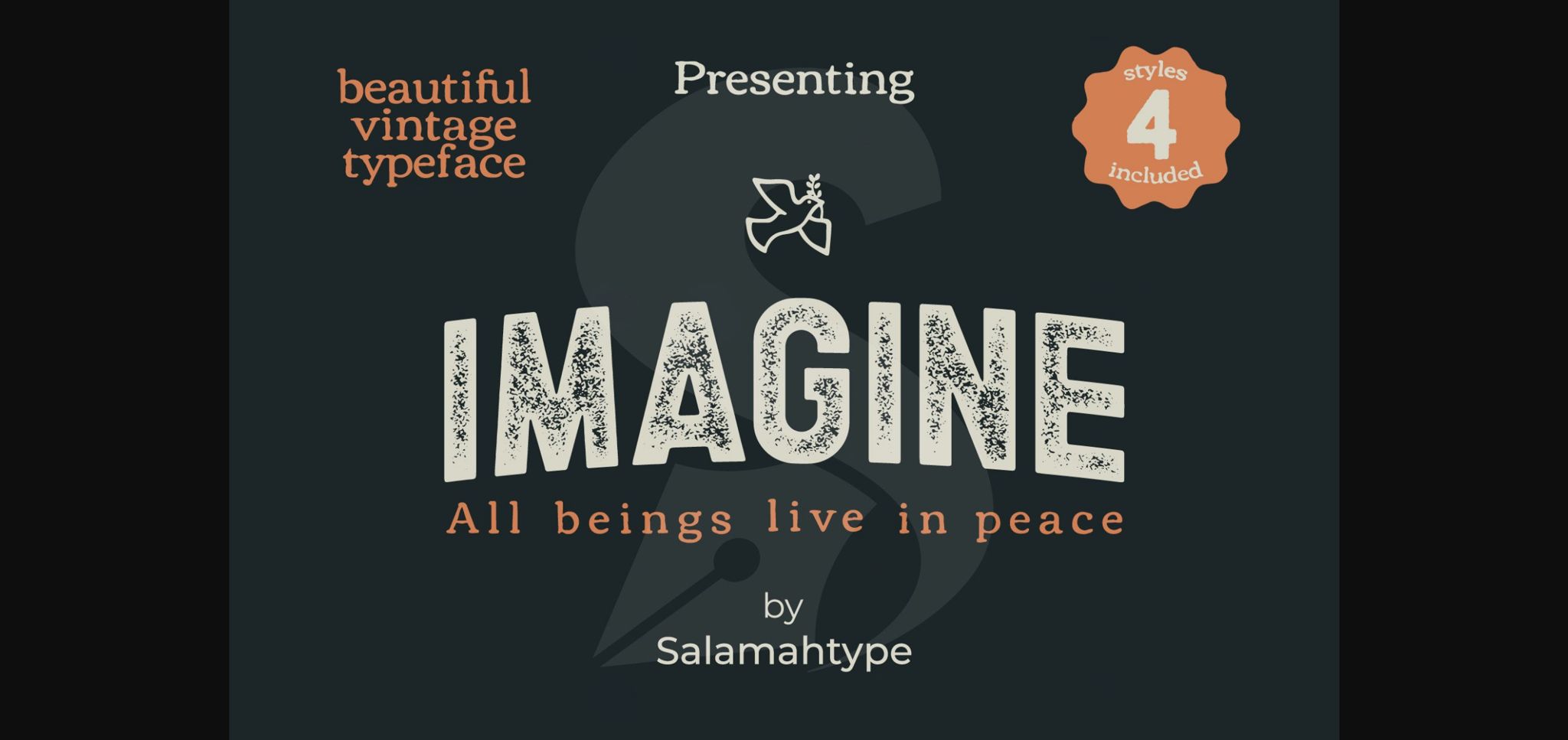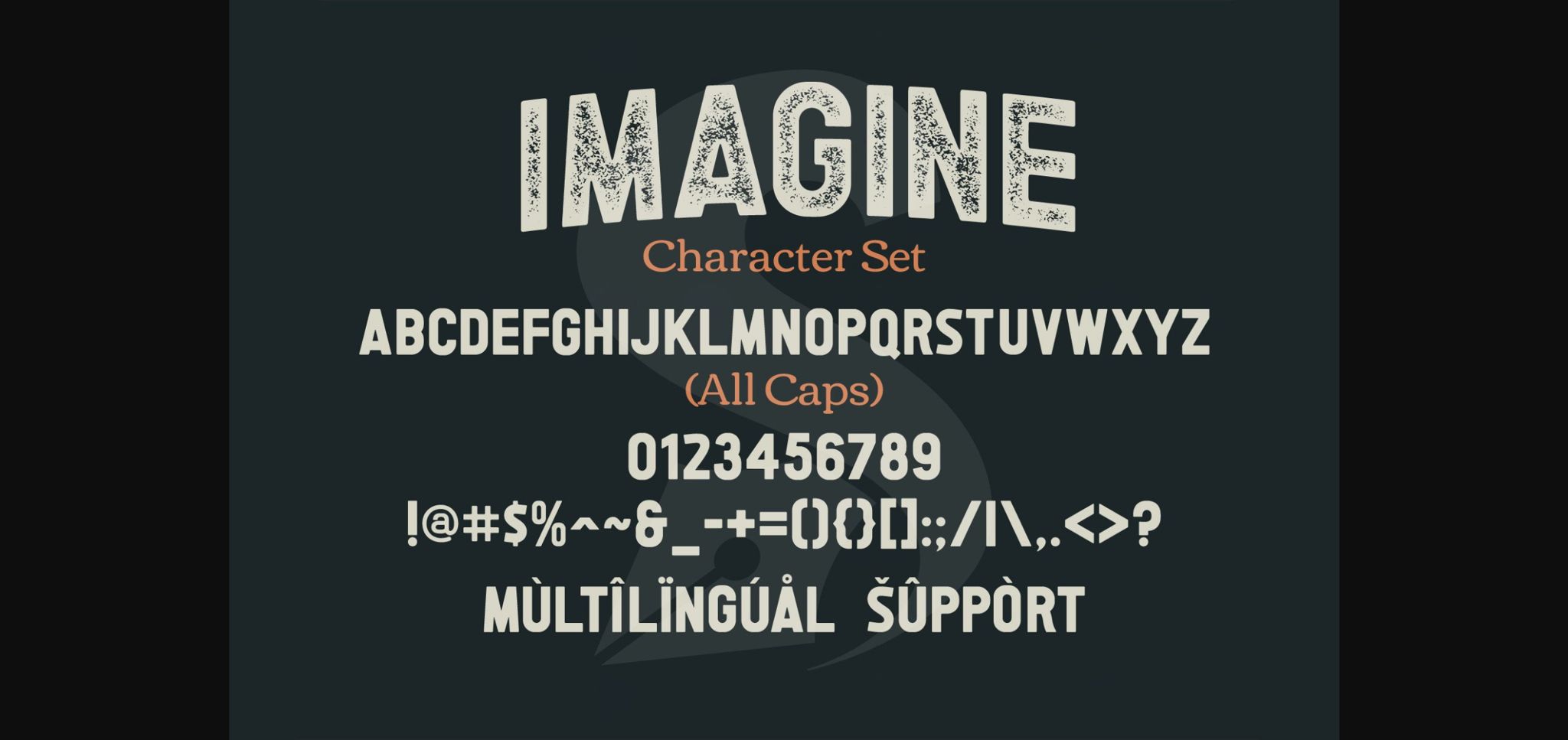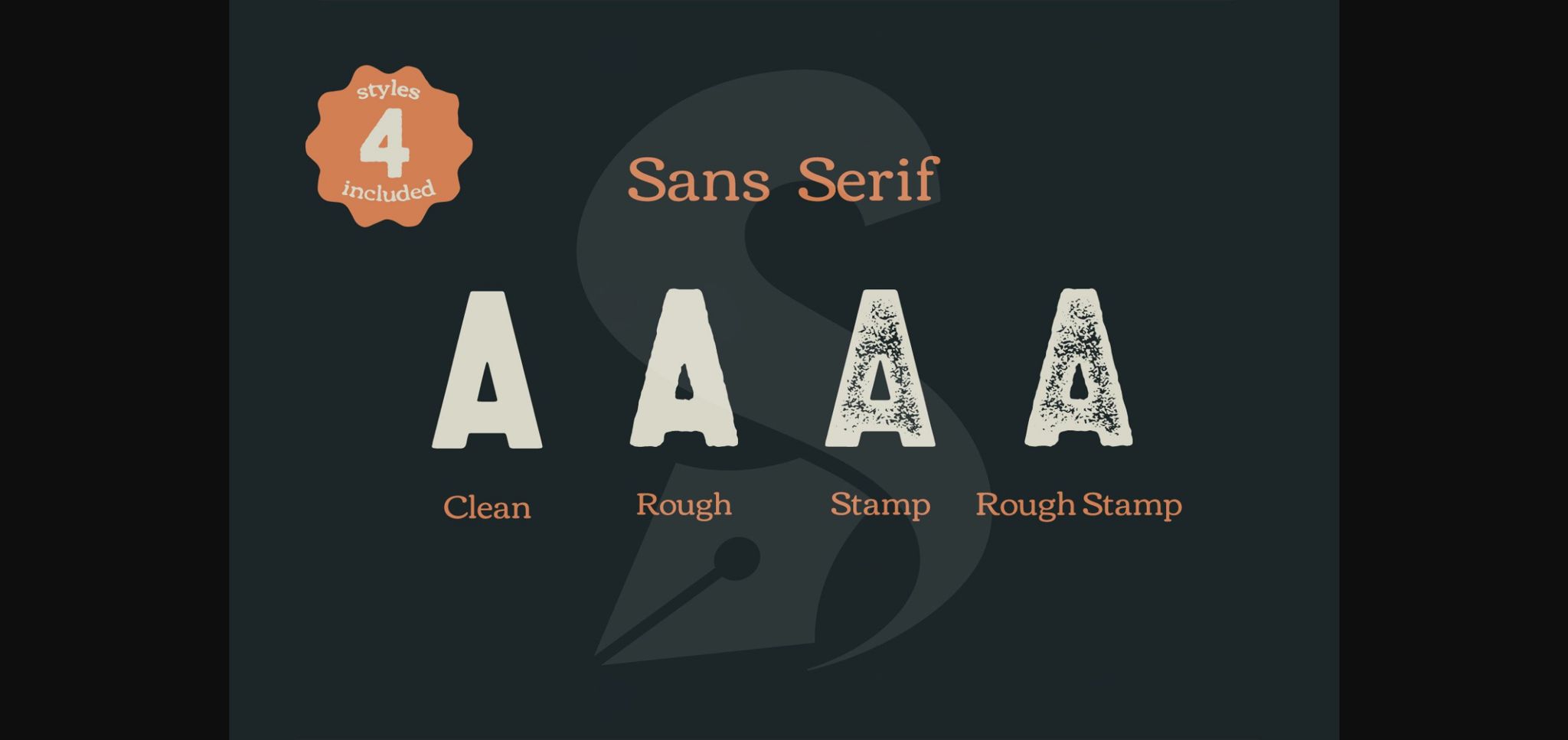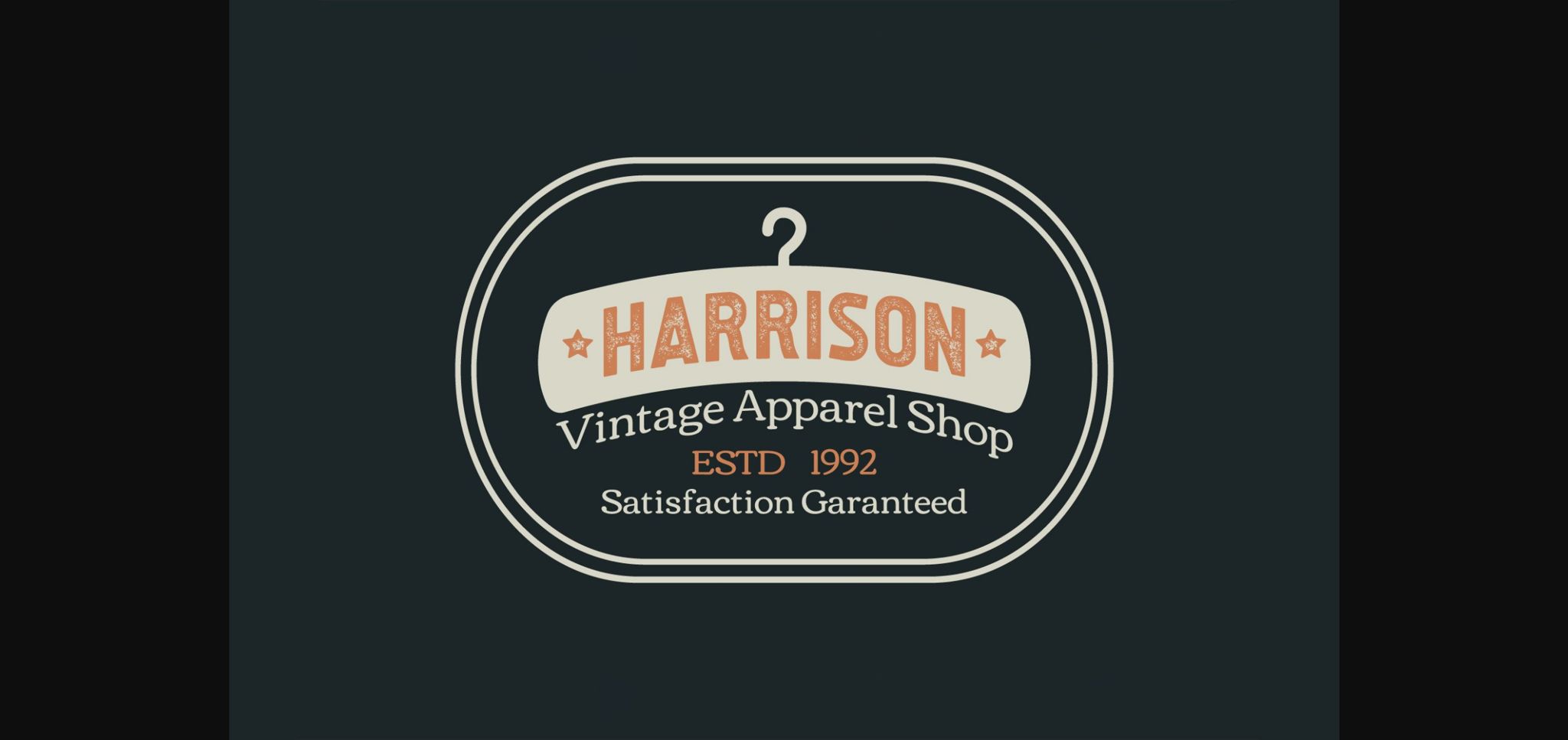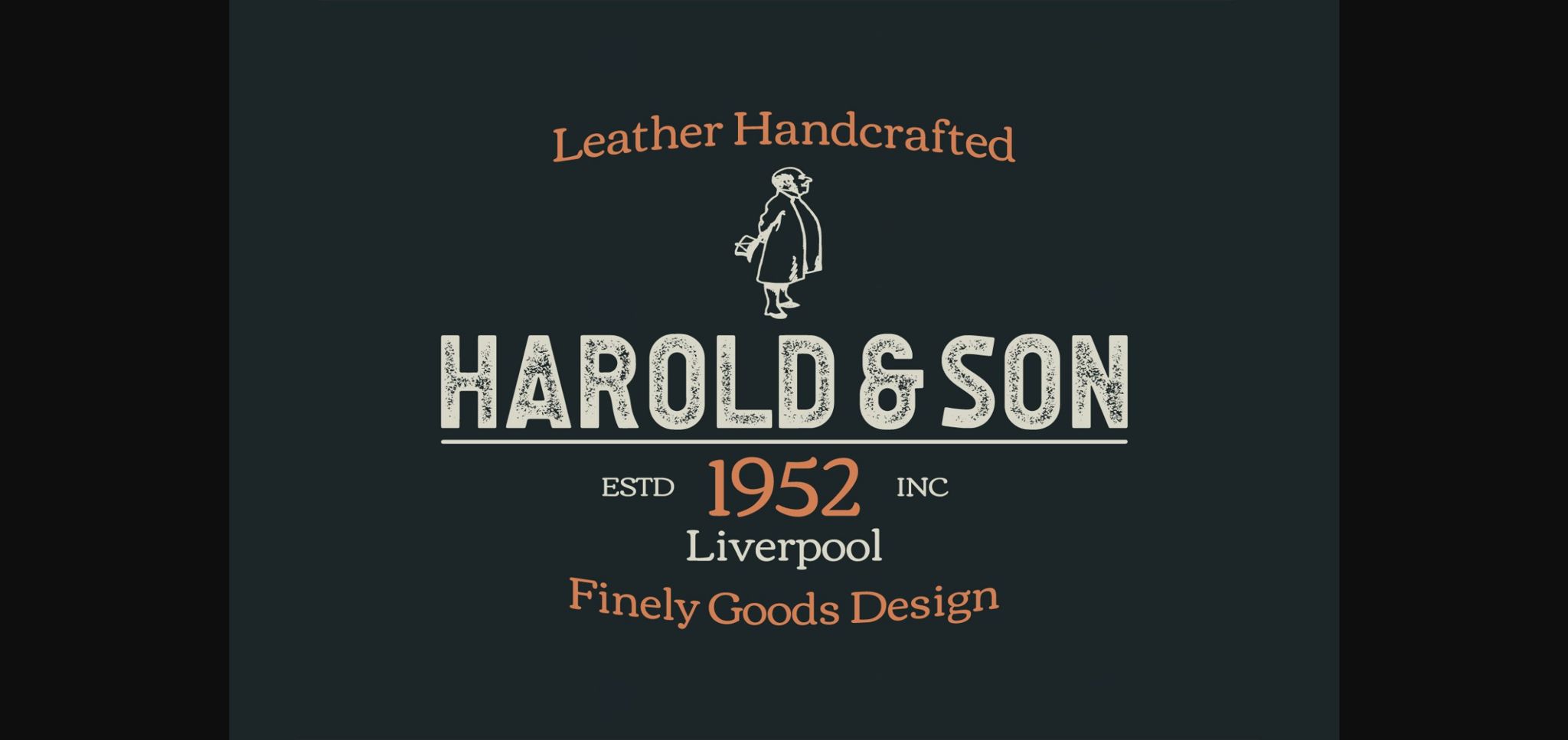
Imagine Font
About Imagine Font
Imagine is a classic sans serif font with a cool and unique look. This typeface is perfect for branding projects, logos, labels, product packaging, and more.